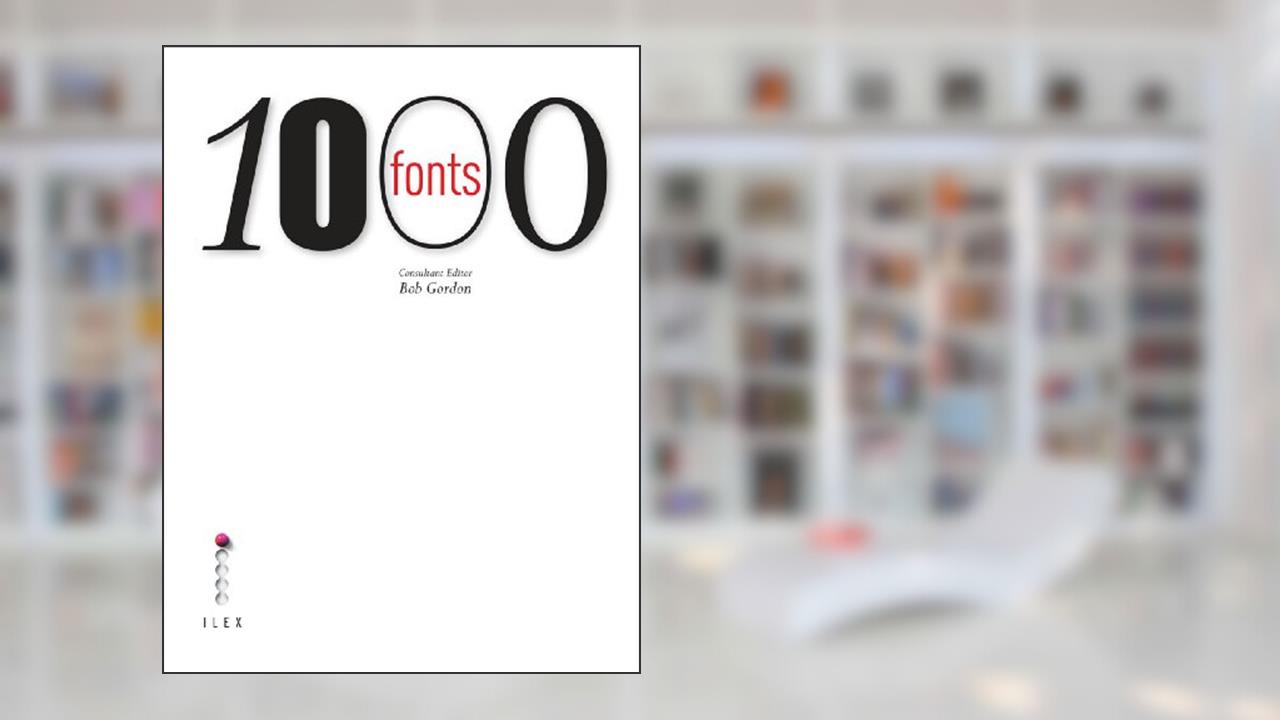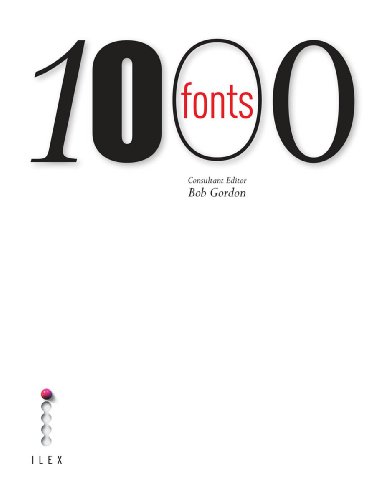
1000 FONTS
GORDON BOB
In the beautifully chaotic world of typography and design, 1000 FONTS by Bob Gordon emerges as a veritable treasure trove, a guide that resonates deeply with designers, typographers, and anyone craving an aesthetic revolution. This is not merely a book; it's the alchemical repository of a thousand fonts that come together to inspire, provoke, and ignite the creative fires within you. At first glance, you might think it's just another collection, but the sheer depth and passion encapsulated in every page compel you to peel back the layers of time and creativity.
This work is an invitation to explore the often-overlooked details of font design. Gordon, with his sharp eye and tireless dedication, transcends the mundane by showcasing fonts that have shaped our visual landscape. Here, you'll find the clean elegance of sans-serifs, the bold declarations of serif fonts, and the whimsical flair of script styles, laid out like an art gallery waiting for your thoughtful gaze to explore them. Each font not only serves its functional purpose but tells a story, acts as a cultural marker, and expresses the passions of its creator.
Readers who have delved into this opus often find themselves entranced by its extensive collection, giving rise to divided opinions: some hail it as the bible of typography, while others argue it could have provided more context around the artistic movements that birthed these fonts. Yet, can you truly diminish the power of a book that opens the floodgates to creative inspiration? Many have reported the invigorating high that accompanies flipping through its pages, eyes darting from one stunning font to another, and the electric charge of possibilities bouncing in their minds.
Designers often speak of 1000 FONTS as the quintessential toolkit that reignites a fading spark of creativity. It becomes a companion in moments of artistic block, and for students, a definitive resource that demystifies the often-intimidating realm of typeface selection-an endeavor redirecting one's design journey from frustrating to revelatory.
Moreover, Gordon's mastery lies in his ability to not just present the fonts but to invoke nostalgia and stir emotions. A simple twist of a letter could resemble an era long past, haunting echoes of exhibitions and movements that made typography the pivotal force behind visual communication. You might find yourself contemplating how advertising moguls and brand architects have harnessed the emotional resonance behind each typographic choice, shaping consumer minds and establishing visual identities that endure.
Critics have echoed a common refrain: the lack of in-depth histories behind some fonts is a missed opportunity. However, isn't it also a testament to the power of design that even a fleeting glance at a typeface could evoke a memory or inspire a new vision? The dialogue ignited among readers mirrors our contemporary society's ever-growing discourse on aesthetics in an increasingly visual world. Are we not all just architects crafting interpretations of our shared experiences through the fonts we choose?
Ultimately, 1000 FONTS is more than a compendium; it's a cosmic kaleidoscope, shifting and aligning to show that the world of typography is both endlessly diverse and universally resonant. By embracing this collection, you grasp an invitation to not just learn but to feel. Your fingers can almost touch the ink that shaped cultural moments throughout history-each typeface a voice, a purpose, demanding to be acknowledged.
This book is a must-have, a golden key to unleashing a torrent of creativity just waiting to explode from the depths of your imagination! So why linger in the mundane when you can explore the magical realms of typography? By engaging with 1000 FONTS, prepare yourself for a journey that will scar your mind with inspiration, leaving you breathless and ready to design the future! ✨️